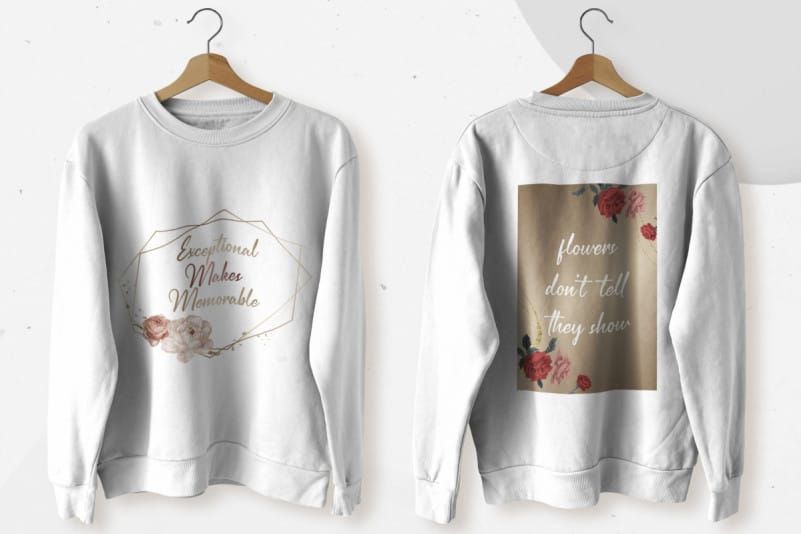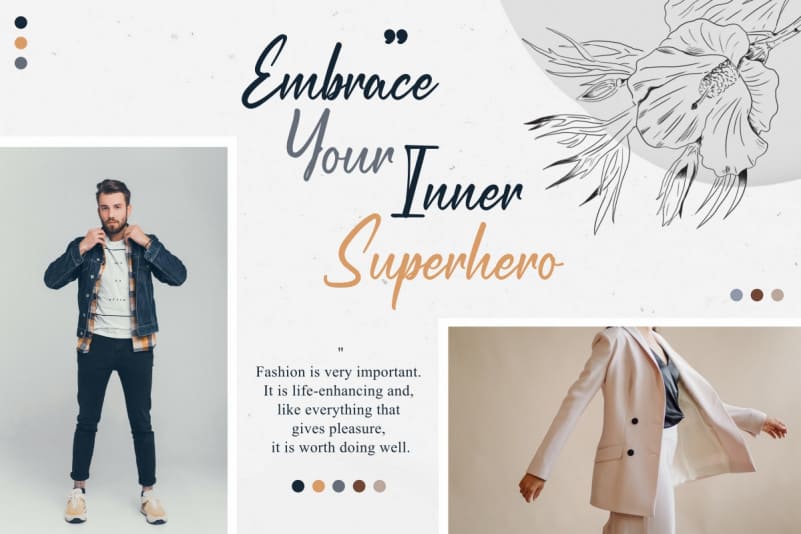
Hightstown Calligraphy Font
Hightstown Calligraphy Font is a unique calligraphy font. It has unique looks that are beautiful, modern, elegant, luxury, lettering and sophisticated brush font.